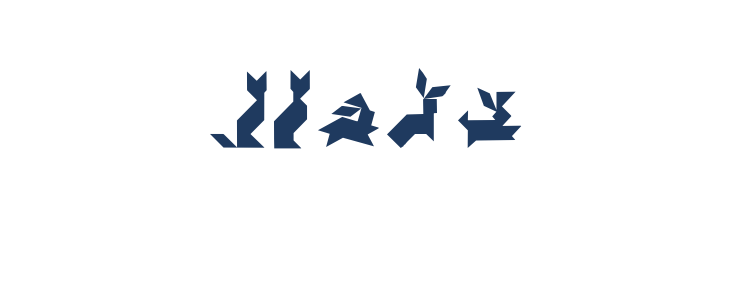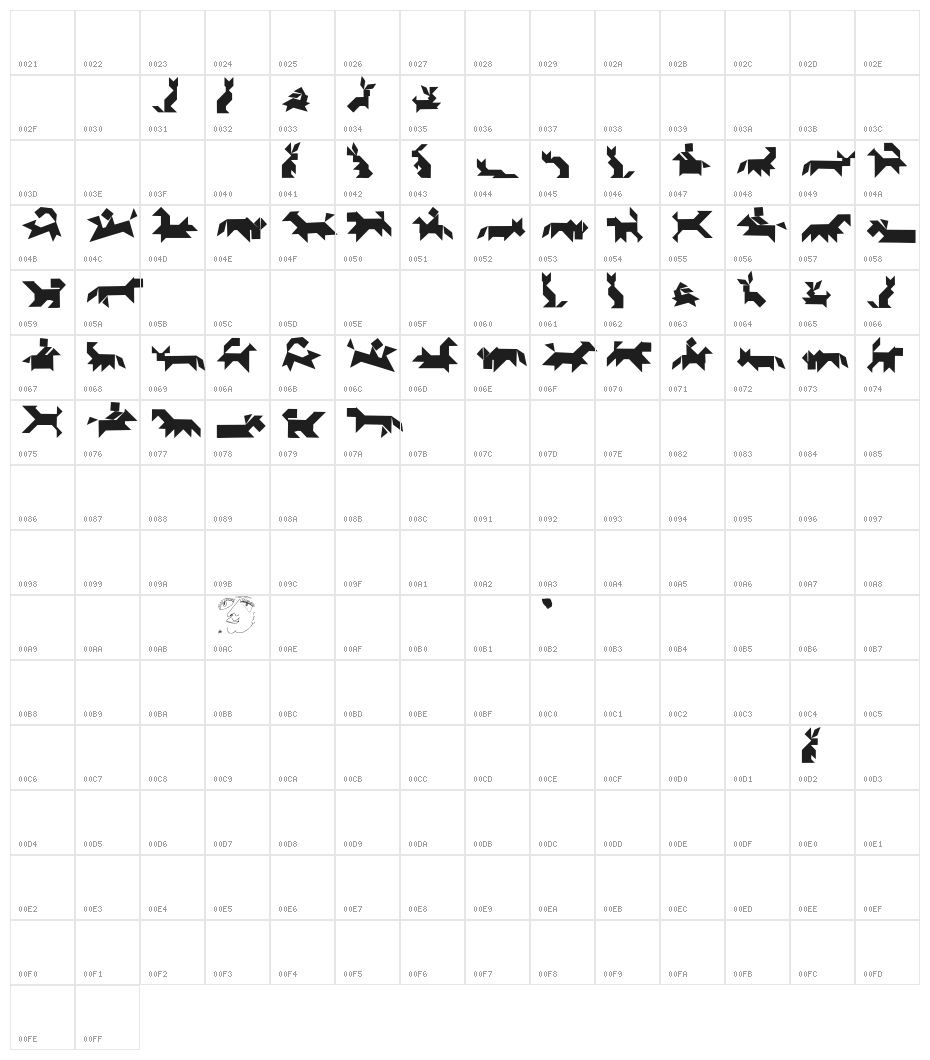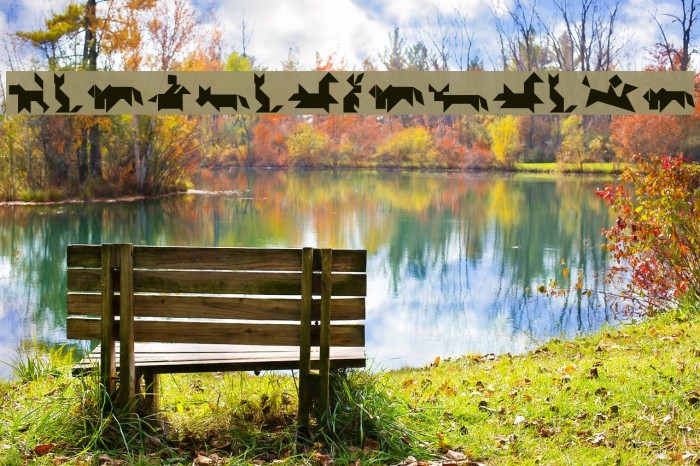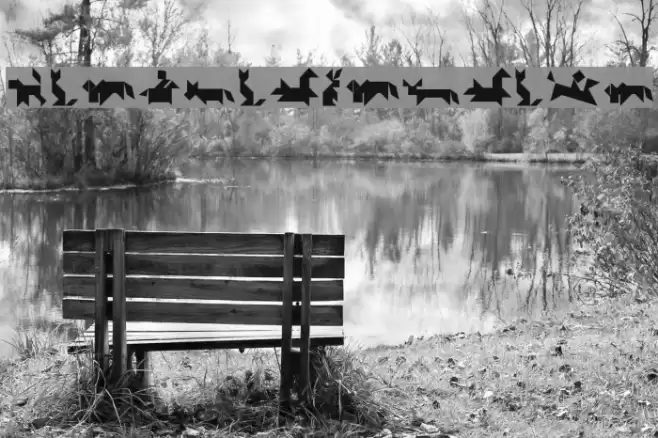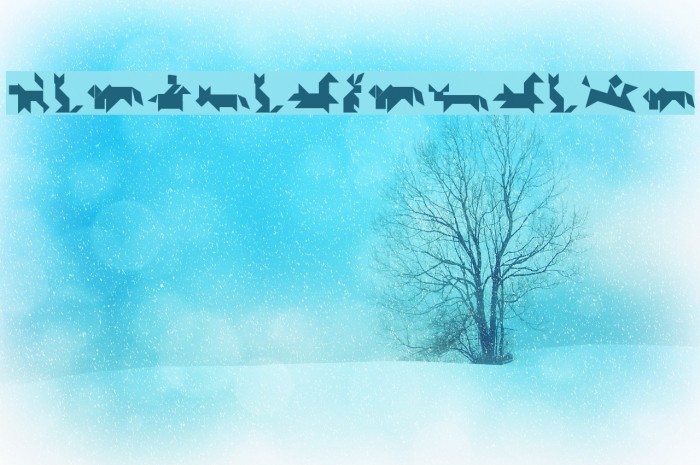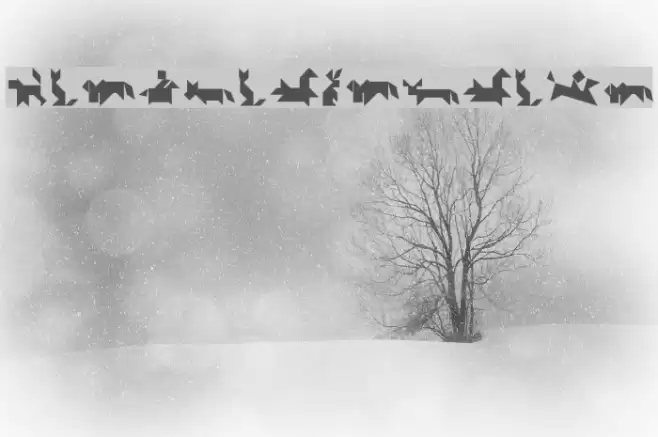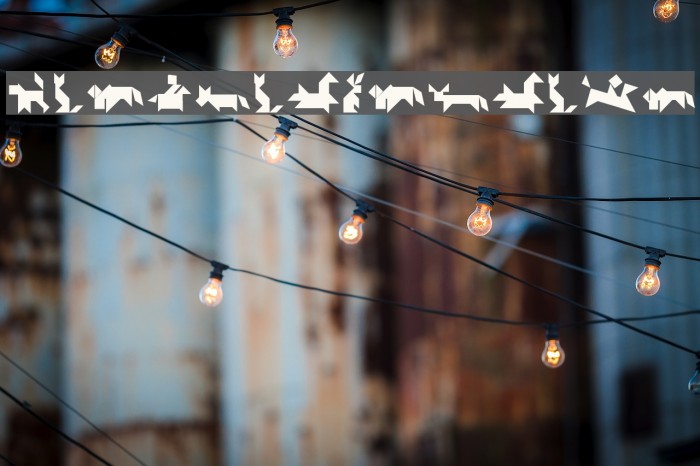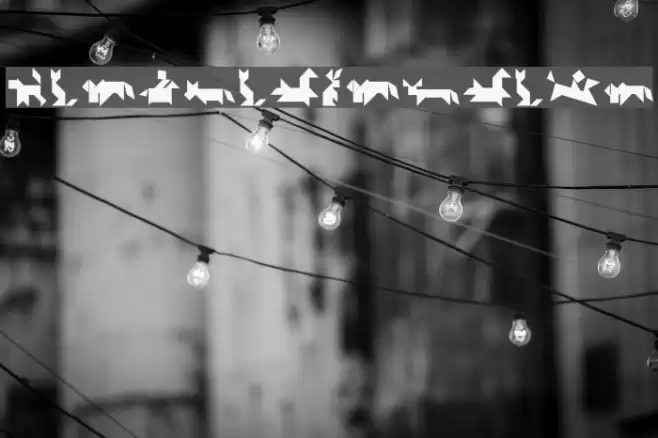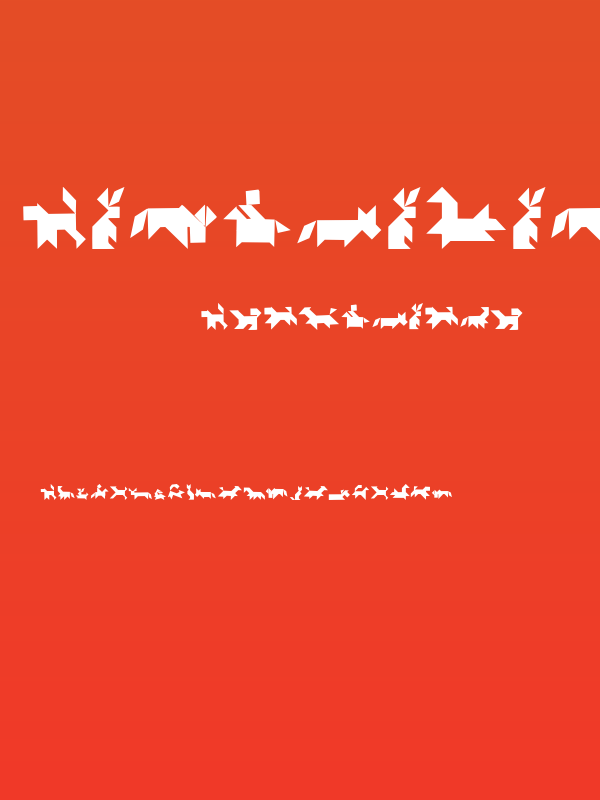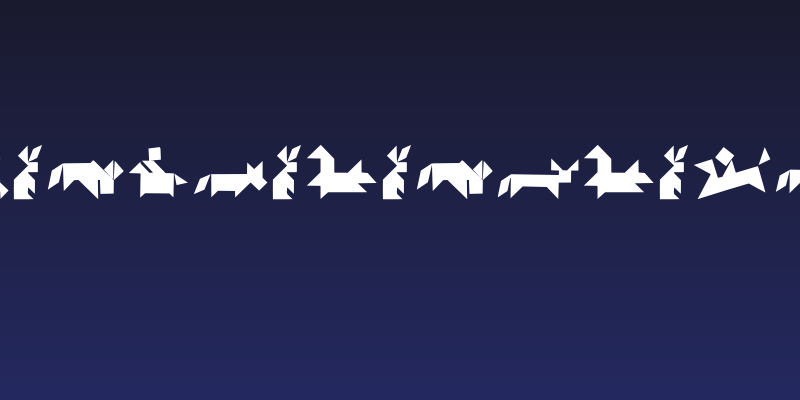
TangramAnimals Font
TangramAnimals Description
This font is a unique and creative representation of animals using the tangram puzzle style. Each character is formed by arranging geometric shapes to resemble various animals, resulting in a playful and artistic appearance. The characters are bold and distinct, with sharp angles and clear outlines that make them stand out. This font is not suitable for traditional text but serves as an excellent decorative element. The use of tangram shapes adds a layer of complexity and visual interest, making it ideal for projects that require a whimsical or artistic touch.
| Use Case | Logos, Posters, Artistic Projects |
| Proposed Projects | Ideal for children's books, educational materials, creative posters, and artistic projects that require a playful and imaginative touch. |